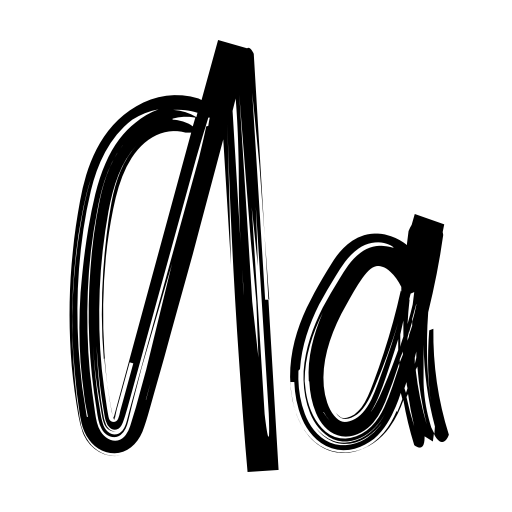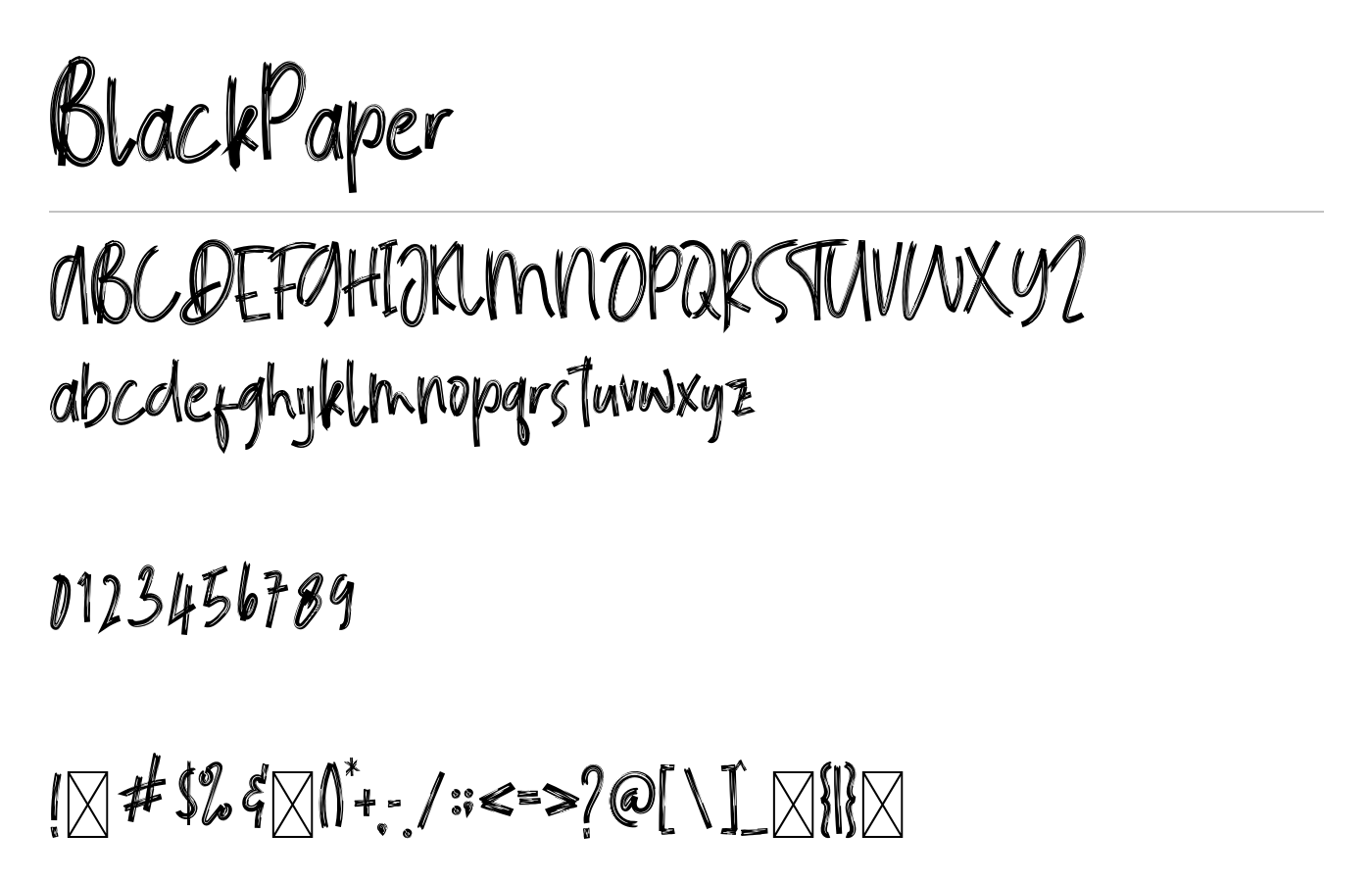
BlackPaper is a playful, hand-drawn handwritten font with a casual and artistic feel. Its tall, slightly narrow letterforms and sketchy stroke texture give it an energetic, informal look, perfect for creative projects, posters, and branding that seeks a unique, approachable vibe. This font works well where personality and a handcrafted touch are key, making it great for invitations, designs for youth culture, or anything that benefits from a fun, expressive style.
BlackPaper Font
About BlackPaper Font
| Font family | BlackPaper Font |